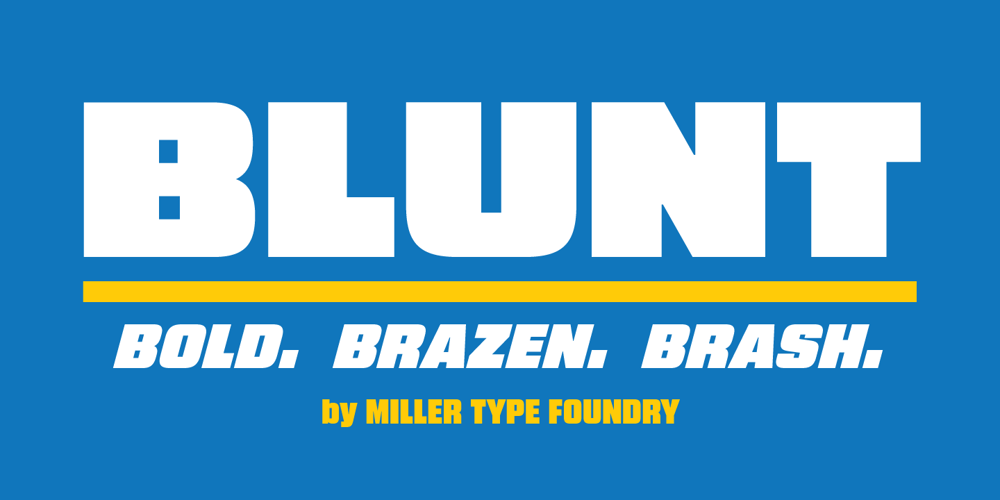
Blunt Font Family was designed by Richard Miller and published by Miller Type Foundry. Blunt contains 8 styles and family package options. Blunt is a refreshing new bold headline typeface, designed to be an alternative to overused headline typefaces such as Impact. Blunt is more than just a one-trick-pony though, but includes 4 weights (Condensed – Wide) each with matching italics. This gives Blunt a lot more versatility when it comes to headline use. Try Blunt today and shout your most important messages with boldness!